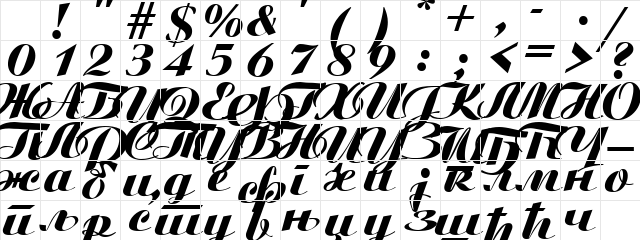
Complete AristonCirilica A glyph index. Displaying only characters natively supported by AristonCirilica A font.
AristonCirilica is a composed and adaptable typeface that performs quietly and consistently across a wide range of design contexts.